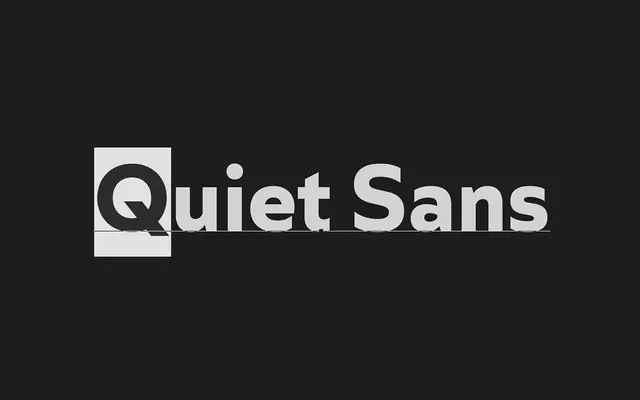
Quiet Sans
Dharma Type · Ryoichi Tsunekawa
Quiet Sans specimen from Dharma Type
A geometric sans-serif by Ryoichi Tsunekawa in six weights with matching italics, built for text legibility on digital screens.
Crisp, sharp letterforms drawn on a geometric skeleton make up this text-oriented family from Dharma Type. Six weights from ExtraLight to ExtraBold each come with matching italics, and the family supports Western, Central and South Eastern European languages as well as Afrikaans. Advanced OpenType features including fractions, superior and inferior figures, ordinals and case-sensitive forms add functional depth for body copy and UI work.
Explicitly described as a super geometric sans-serif, with crisp and sharp geometric letterforms designed for text and screen use rather than display purposes.